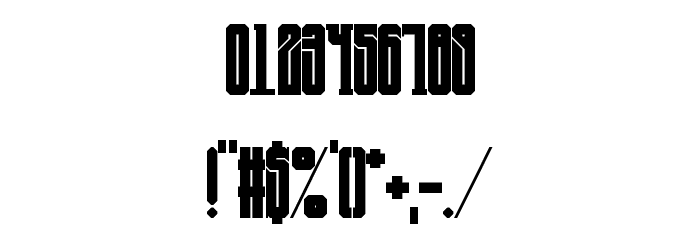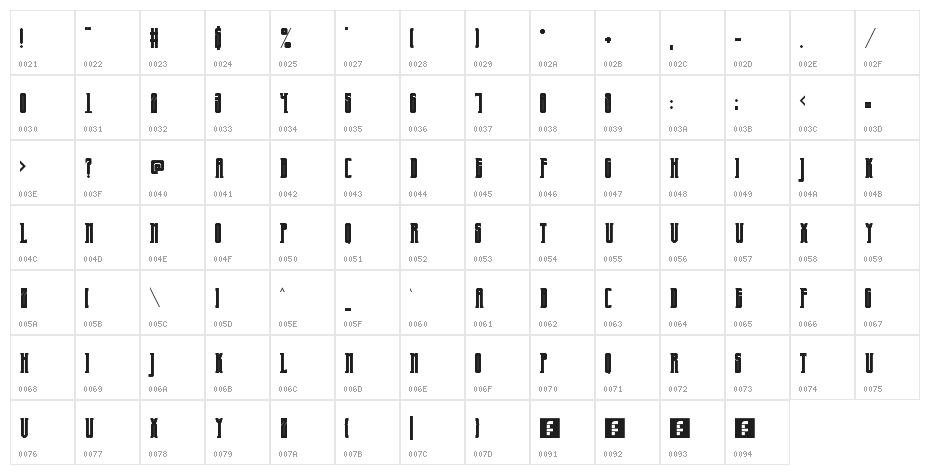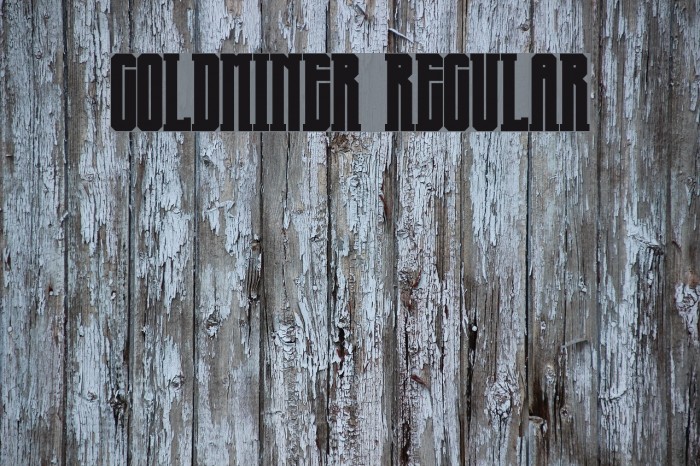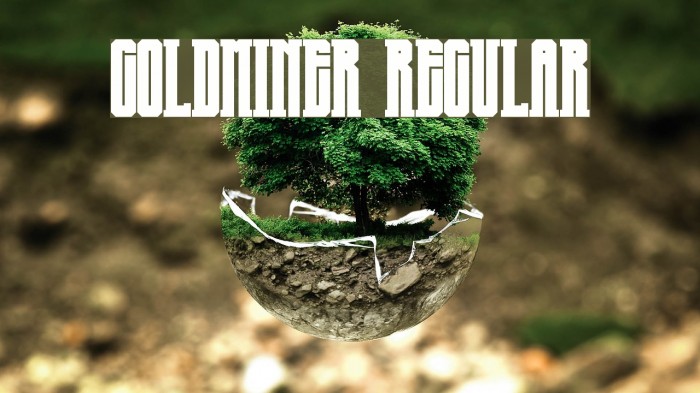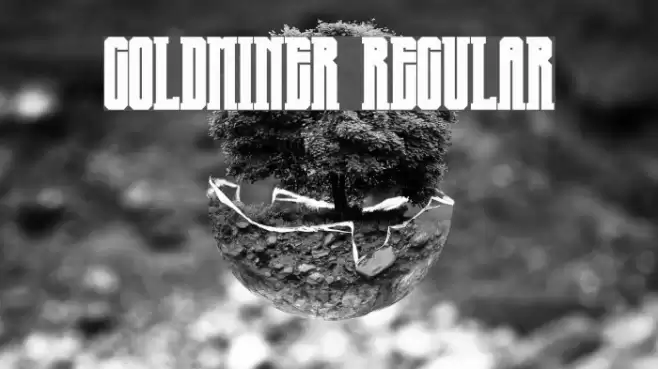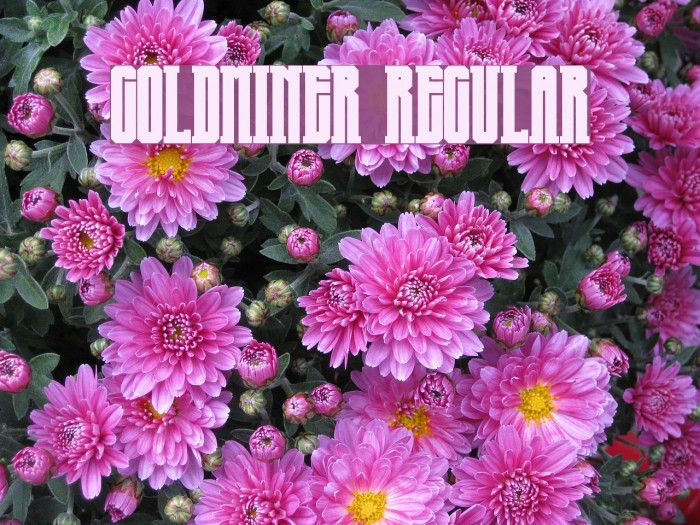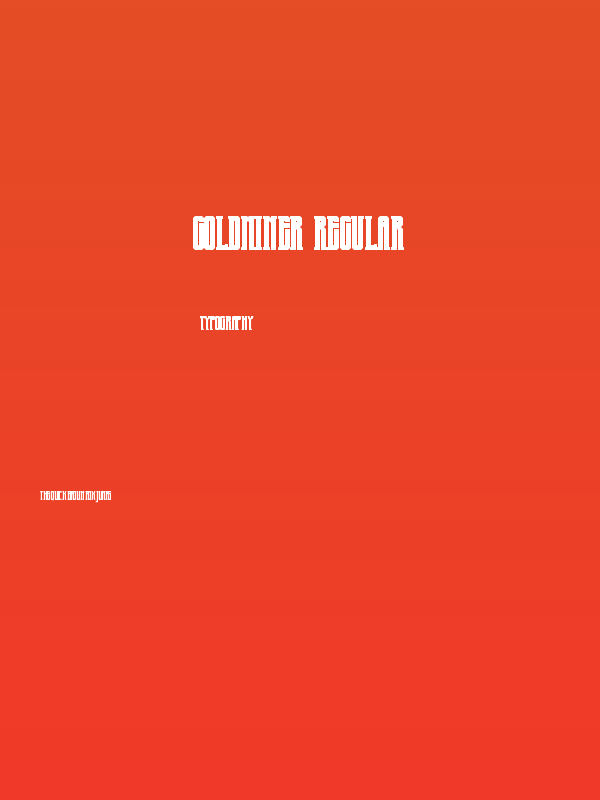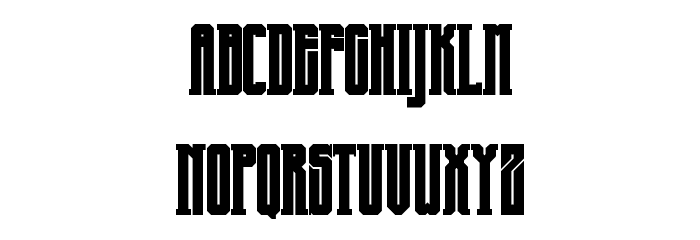
Goldminer Regular Font
Goldminer Regular Description
This font features a bold and striking design, characterized by its thick, blocky letterforms and strong vertical emphasis. The characters are uniformly wide, giving a sense of solidity and strength. The uppercase and lowercase letters maintain a consistent style, with sharp edges and minimal curves, creating a modern and industrial feel. The numbers and special characters follow the same robust design, ensuring uniformity across all glyphs. This font's boldness and geometric precision make it ideal for impactful and attention-grabbing designs.
| Proposed Projects | Ideal for posters, headlines, branding, and any design requiring a strong visual impact. |